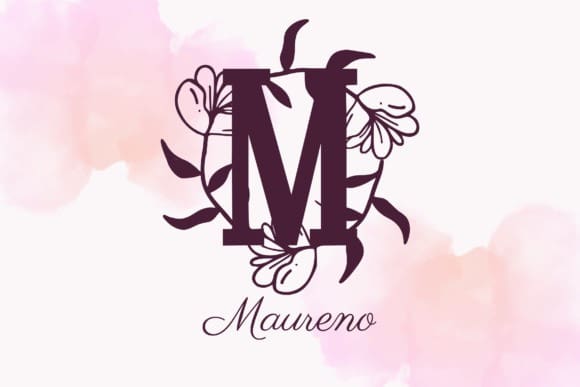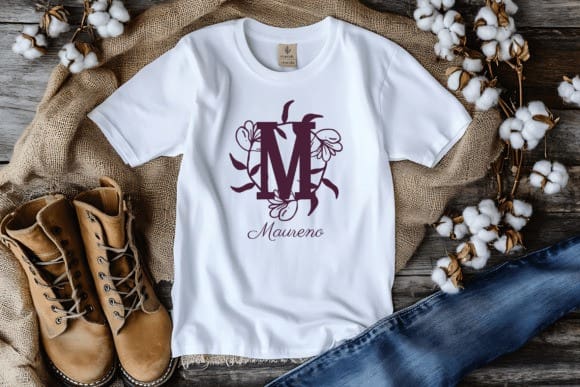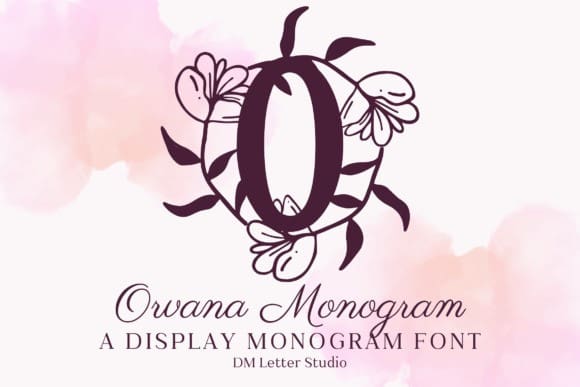
Orvara Monogram Font is a contemporary serif monogram font designed for clean elegance and confident readability. Each uppercase letter is carefully shaped with refined serifs, open counters, and measured spacing so initials look sharp in print, on screen, and when cut or engraved. Use Orvara for wedding suites, boutique branding, keepsakes, packaging, vinyl decals, embroidery, laser engraving, and Cricut projects where a polished monogram matters.
The design blends modern poise with classic structure. Strokes stay steady, curves are sculpted, and proportions feel intentional across the set. This balance makes Orvara reliable at small sizes and striking on signage or product labels. Pair it with a light script to add romance, or with a neutral sans to build a clean, gallery-style system that lets the monogram lead.
Whether you are building a wedding crest, a personalized gift line, or a premium label set, Orvara delivers clarity, consistency, and a refined finish. The letterforms feel calm and intentional, helping your monogram look considered across print, cut, and engraved applications.